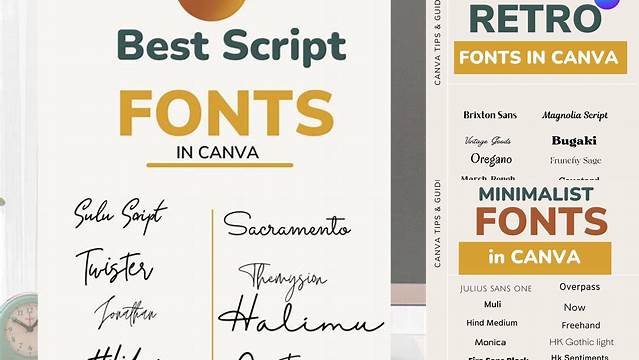
Italic Fonts In Canva: A Beginner's Guide
Hey guys! Ever wondered how to add that sleek, italic touch to your designs in Canva? Well, you're in the right place! We're diving deep into the world of italic fonts in Canva, exploring everything from basic techniques to some super cool tricks that'll make your text pop. Whether you're a seasoned designer or just starting out, this guide has something for everyone. Let's get started and make your designs look extra snazzy! This guide is all about mastering the art of italic fonts in Canva, and trust me, it's easier than you think. Let's break down the basics, uncover some pro tips, and sprinkle in some design inspiration to get your creative juices flowing. Get ready to transform your designs from good to gorgeous! The journey starts now, and it's going to be fun, I promise.
What are Italic Fonts and Why Use Them in Canva?
So, what exactly are italic fonts, and why should you care about them in your Canva creations? Simply put, italic fonts are those stylish text styles that are slanted to the right, giving your words a sense of elegance, emphasis, or even a touch of flair. They're like the secret sauce that can elevate your designs from ordinary to extraordinary. Using italic fonts in Canva isn't just about making your text look pretty; it's about communicating your message effectively and adding a layer of visual interest. Think about it: italics can indicate emphasis, differentiate between different types of information, or simply add a touch of personality to your design. In essence, mastering italic fonts in Canva helps you tell a story, capture attention, and make a lasting impression on your audience. The beauty of italic fonts lies in their versatility. You can use them in a variety of ways, from headings and subheadings to body text and captions. This adds a touch of sophistication to your design, which is essential for making your content stand out. Plus, they're super easy to incorporate into your projects, whether you're designing social media graphics, presentations, or marketing materials. They can guide the eye, emphasize key points, and give your designs a more polished look. They're like the cherry on top of a delicious design sundae, making everything better and more appealing. So, by using italic fonts in Canva properly, you're not just creating designs; you're crafting visual experiences.
Finding Italic Fonts in Canva: Your Step-by-Step Guide
Alright, let's get down to the nitty-gritty: How do you actually find and use italic fonts in Canva? The process is pretty straightforward, but here's a detailed, step-by-step guide to make sure you're a pro in no time. First things first, open up your Canva design and select the text box you want to style. Once the text box is selected, head over to the top toolbar where you'll find the font selection dropdown. Click on this dropdown, and a list of available fonts will appear. Now, here’s the tricky part: not all fonts have an italic version built-in. Canva smartly indicates which fonts offer italic styles by either having a dedicated italic option in the font style menu or including an italic variant in their font family. Look for fonts that already appear italicized in the preview or have an 'Italic' option in the font style menu. If you see it, boom, you're in business! If the font you've chosen has a dedicated italic style, simply click on that option. The text in your text box will instantly transform into its italic version. Another neat trick: Sometimes, even if a font doesn't have a specific italic style, Canva might allow you to italicize the text using the 'Italic' button in the text formatting toolbar. However, please be aware that not all fonts support this and this method may create a faux-italic style, which might not always look as polished as a font's specific italic design. In the font selection menu, you will be able to find the font that has a dedicated italic style, and then you will be able to add the desired effect. Once you've found a font with an italic option, the real fun begins! Play around with different font sizes, colors, and styles to see how the italic version complements your overall design. You will be able to make your designs much better than before.
Common Italic Font Issues and How to Fix Them
Even though using italic fonts in Canva is generally a smooth process, you might run into some common issues. Don't worry, though—they're usually easy to fix. One of the most frequent problems is the absence of a true italic style for the font you've selected. As mentioned earlier, not all fonts come with an italic version. If you try to apply the italic formatting to a font that doesn’t have it, Canva might either create a faux italic effect or do nothing. The solution? Switch to a font that has a dedicated italic style. To do this, browse through the font selection menu until you find a font that has the 'Italic' option. This way, you can make sure your text looks polished and intentional. Another common issue is the readability of the italic text, especially at smaller font sizes. Because italic fonts are slanted, they can sometimes be more difficult to read, particularly in long blocks of text. To fix this, consider using italic fonts sparingly, especially for headings, captions, and emphasis. If you're using italic for body text, make sure the font size is large enough and that there's enough space between the lines of text. The issue can also be attributed to the font itself. Some italic fonts are simply designed better than others. Try a different font that you like and that is more readable. Poor contrast is another issue. Italic fonts are great for emphasizing text, but they won’t do the job if there isn't enough contrast between the text and the background. Make sure your text color stands out against your background. Always check your design on different devices to ensure everything looks perfect. When you face the font issues, remember to troubleshoot and adjust your font choices.
Pro Tips for Using Italic Fonts in Canva
Alright, you're ready to level up your italic font game? Here are some pro tips to help you use them effectively and creatively in your Canva designs. First off, consider using italics for emphasis, but use it strategically. Instead of italicizing entire paragraphs, use it to highlight key words or phrases. This way, you can draw your audience's attention to the most important parts of your message without overwhelming them. Use italics for quotes, especially when you want to indicate a direct quote from someone. This helps your audience distinguish the quoted text from your own writing and adds a touch of professionalism to your design. Be conscious of font pairing. Match your italic font with a complementary font for your headings and body text. Ensure the two fonts harmonize visually. For example, pair a simple sans-serif font for your headings with an elegant italic script for emphasis. Be mindful of visual hierarchy. Use italic fonts to guide your audience's eyes. Italicized text can indicate which elements are most important and which should be read first. Think about where you want your audience's focus to be and use italics accordingly. For your presentations and social media posts, make sure everything is visible, including the italic font. Don't be afraid to experiment and get creative. Try using italic in unexpected ways! Canva provides a lot of options, so feel free to experiment with various font styles and create your unique designs. Don't be afraid to experiment to create striking designs.
Italic Font Design Inspiration and Examples in Canva
Need a little inspiration? Here are some awesome examples of how you can incorporate italic fonts in Canva into your designs. First off, let’s talk about social media graphics. Italic fonts can add a touch of elegance to your Instagram posts or Facebook ads. Use them in your headings to make them stand out or in your captions to emphasize special offers. When it comes to posters and flyers, italics can be perfect for creating eye-catching headlines and taglines. Match an italic script font with a bold, sans-serif font for a visually appealing contrast that draws attention. In presentations, use italics to highlight key points or quotes. Pair an italic font with a clean and modern font for the rest of your text, such as the headings and the body. The most important part of any document is to have an effective and pleasing design. By having good contrasting colors with an italic font you will be able to create amazing results. You can use it for menus, websites, or anything in general. Use it for your brand's logo, the name, and tagline to create a distinctive style. You can also create an aesthetic that's consistent with the brand itself. Remember, the goal is to create designs that not only look good but also communicate your message clearly and effectively. Experiment with the different styles, and don’t be afraid to try new things. Canva is an incredible tool that provides the right resources to do it.
Conclusion: Mastering Italic Fonts in Canva is a Design Game Changer!
So there you have it, guys! You've learned the ins and outs of using italic fonts in Canva. From the basics of finding and applying them to pro tips and design inspiration, you're now equipped to add a touch of elegance, emphasis, and flair to your designs. Remember to always check for font compatibility, and don't be afraid to experiment. Canva offers so many options, and with a little creativity, you can create designs that are not only visually appealing but also communicate your message effectively. By mastering italic fonts in Canva, you are well on your way to becoming a design superstar. Happy designing! And, as always, keep creating and keep having fun. Now go out there and make some beautiful designs!